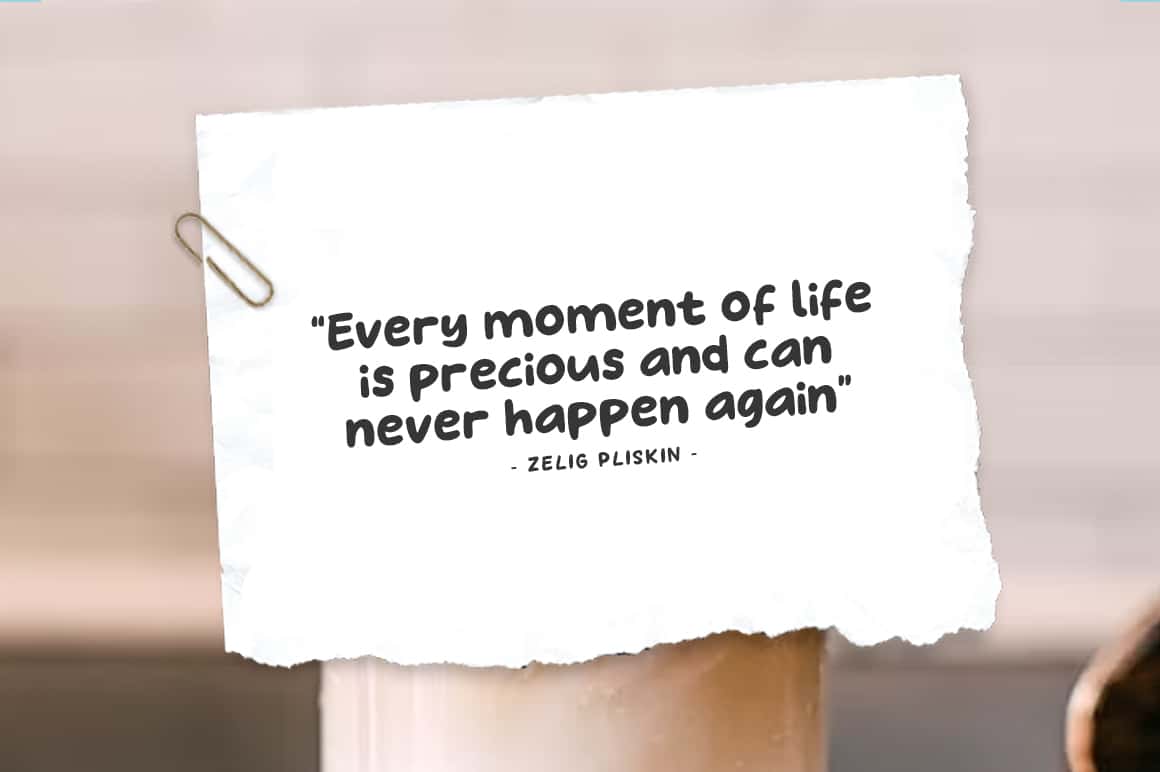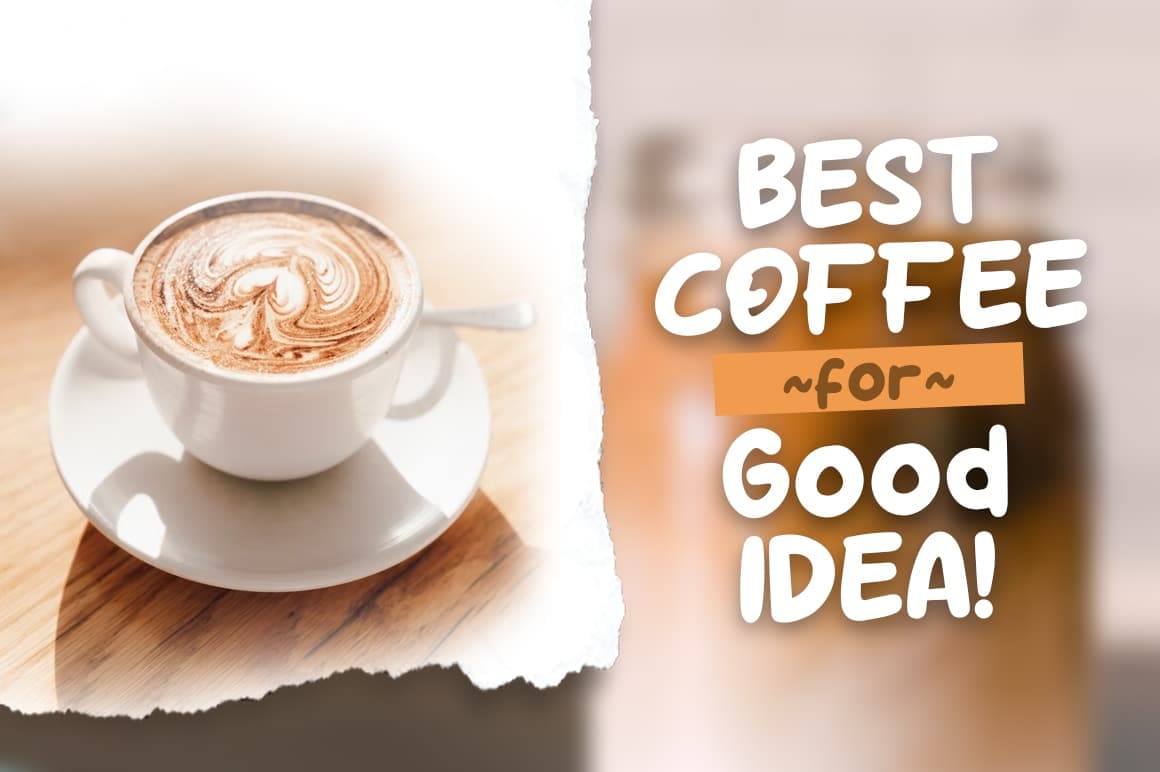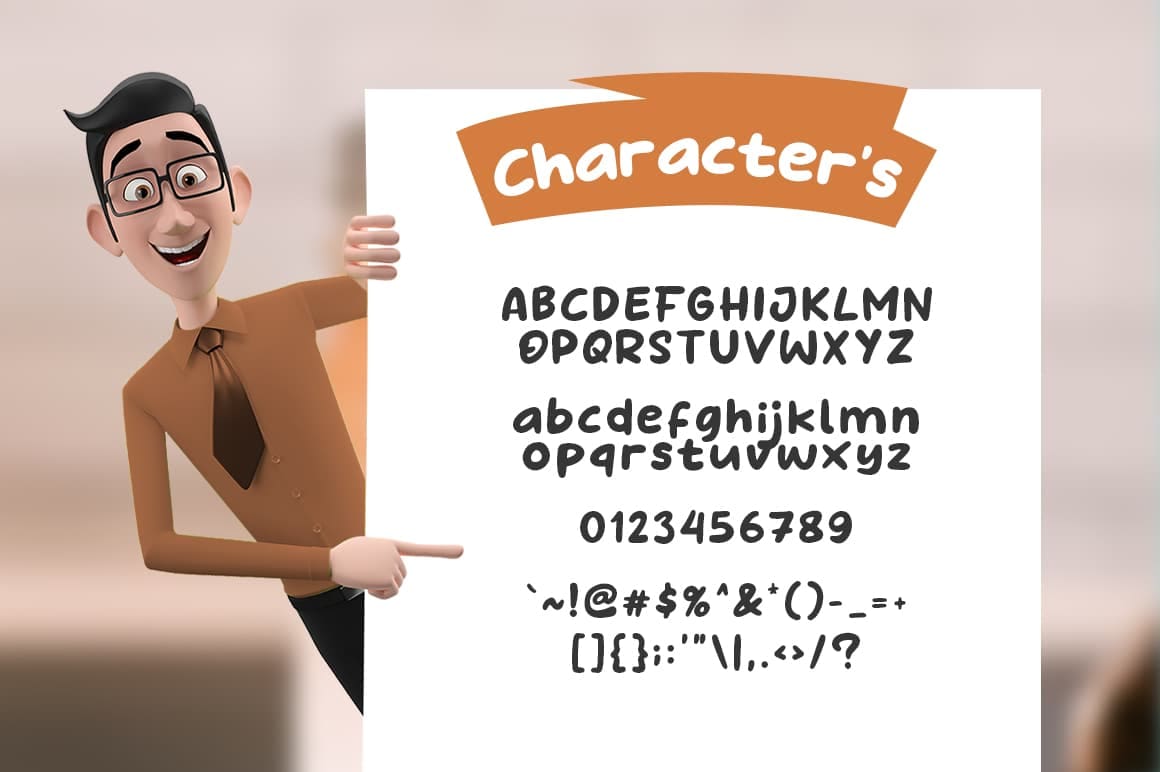
Milky Boba Font
Milky Boba is a modern and fancy display font perfect for posters, logos, magazines, book covers, banners, and many more! Get this fun display font, and use it to create lovely designs!